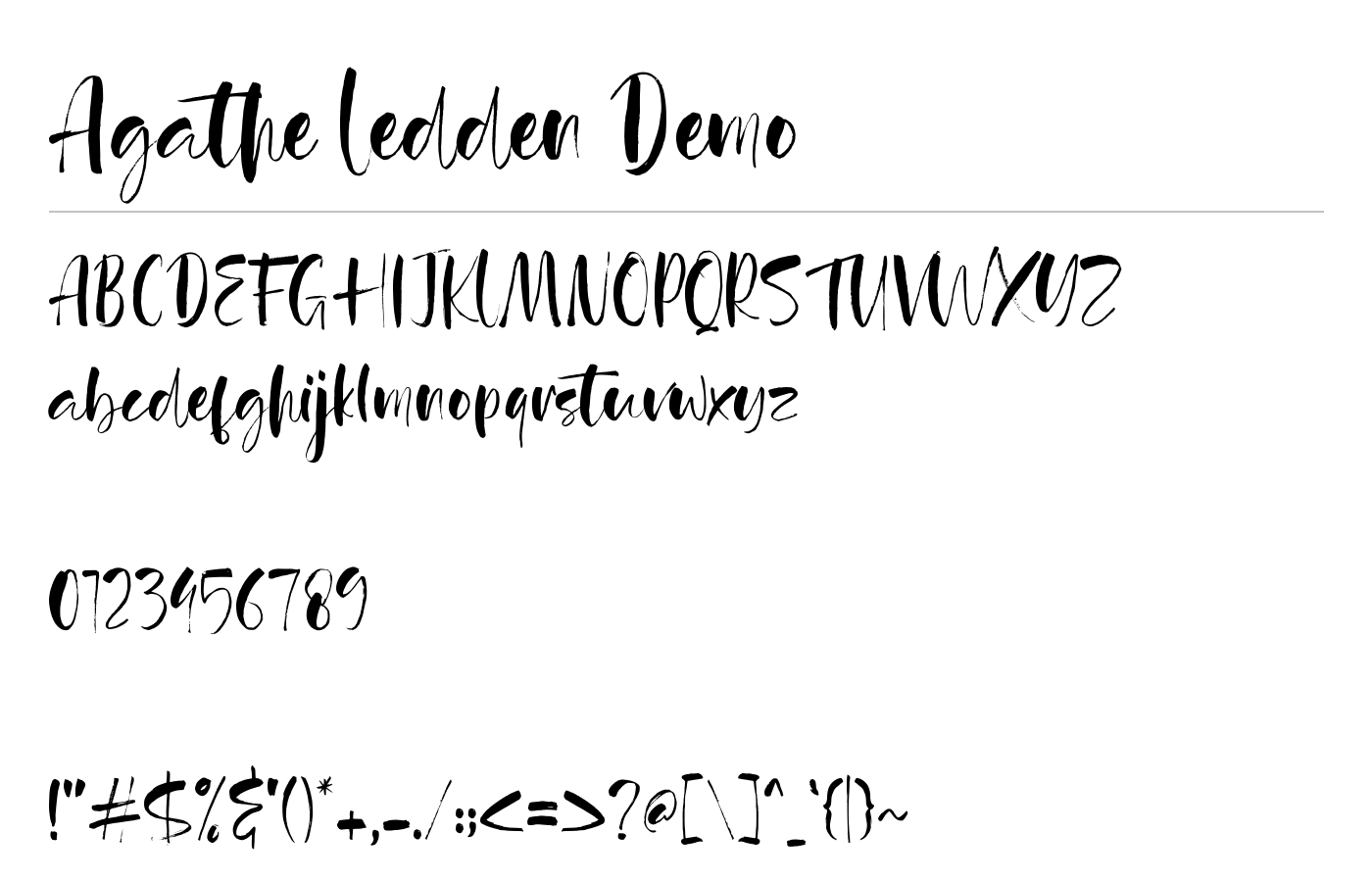
Agathe Ledden is a lively and artistic script font that mimics expressive hand lettering with varied stroke thickness and a slightly rough texture. Its tall, narrow letterforms and whimsical curves create a casual yet dynamic feel, ideal for creative projects that want to convey personality and charm. This font works well for headlines, logos, invitations, and any design seeking a personal, handcrafted touch.
Agathe Ledden Font